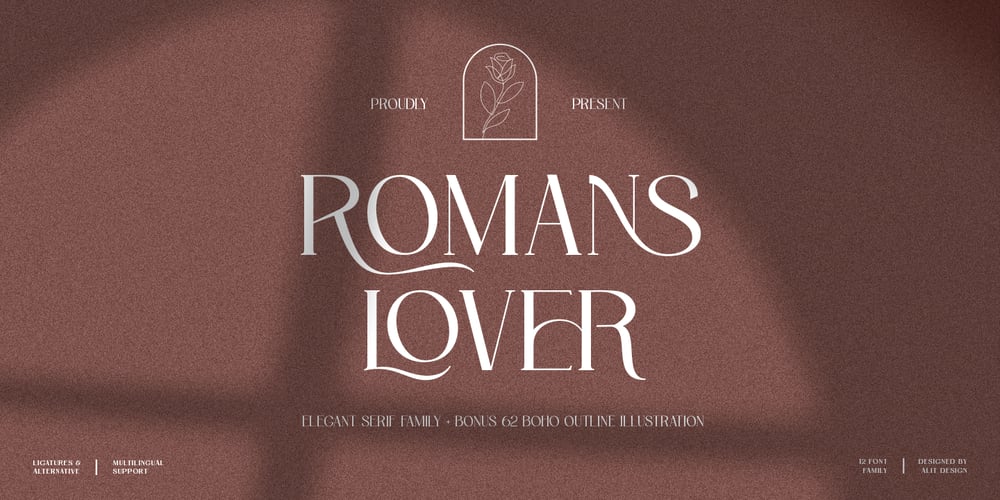
Romans Lovers
Romans Lovers font
Romans Lovers Font Family was designed by Alit Suarnegara and published by Alit Design. Romans Lovers contains 12 styles and family package options. Introducing Roman Lover Elegant typeface + Bonus Boho IllustrationsThe Roman Lover Serif typeface is an elegantly themed font that has a dynamic serif style. The details of the shape of the “Roman Lover Serif Elegant typeface” are very smooth and flow to create unique and beautiful curves. Elegant Serif typefaces such as “Roman Lover Serif Elegant typeface” are very easy to apply to any design, especially those with an elegant and smooth concept, besides that this font is very easy to use both in design and non-design programs because everything changes and glyphs are supported by Unicode (PUA).The Roman Lover Serif Elegant typeface contains 573 glyphs with many unique and interesting alternative options. Plus, there’s a cool serif font family for header and description text from Thin to Heavy. In the poster preview all the letters are in the Roman Lover Serif Elegant typeface.